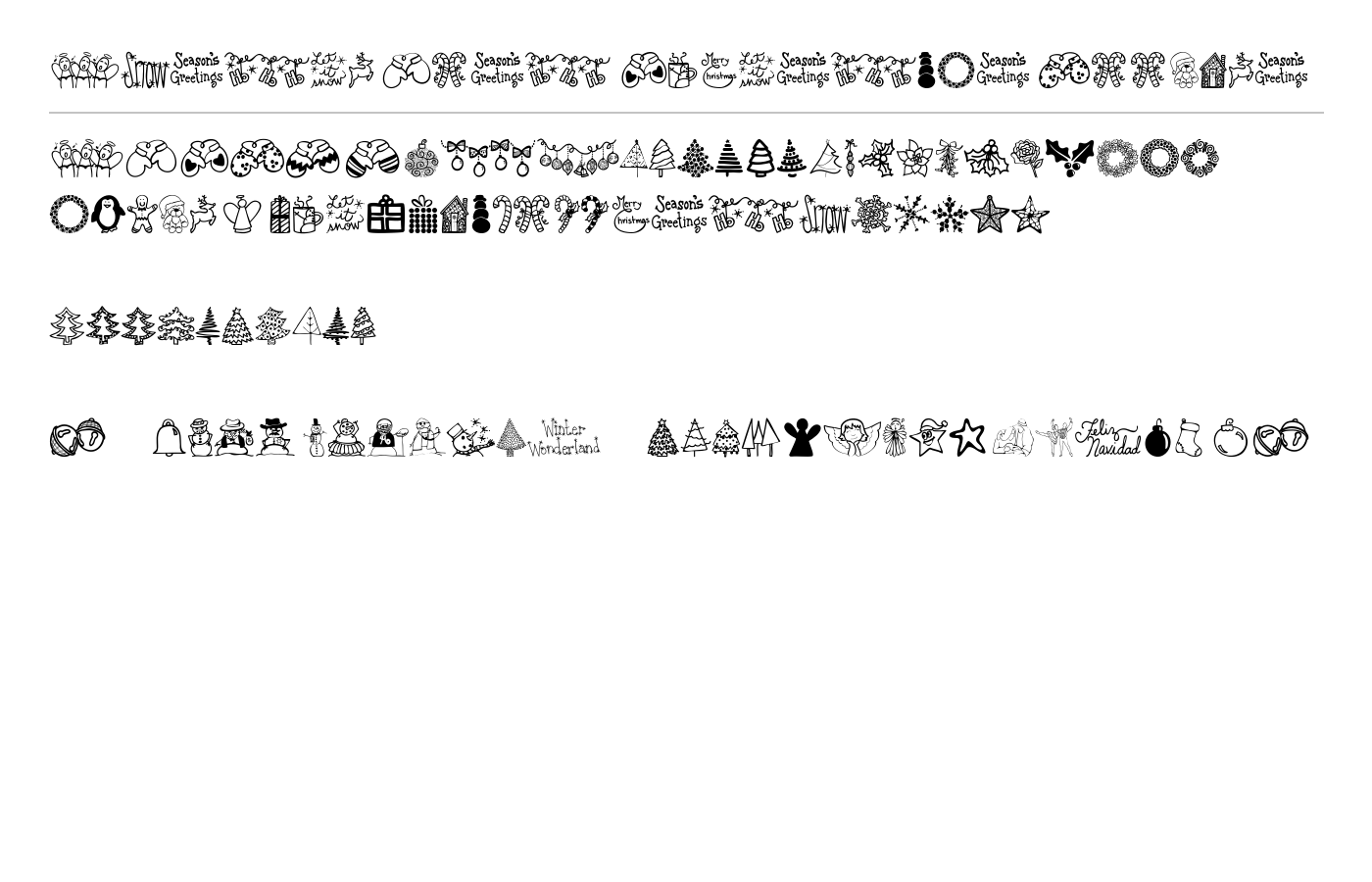
Austie Bost Christmas Doodles Font is a playful, handwritten-style dingbat font filled with charming holiday-themed illustrations and festive icons. Its light, whimsical strokes and cute decorative details make it perfect for adding a joyful, handcrafted touch to seasonal cards, party invites, and holiday craft projects. This font works best for creative designs that aim to evoke warmth and holiday cheer with a fun and casual feel.
Austie Bost Christmas Doodles Font
About Austie Bost Christmas Doodles Font
| Font family | Austie Bost Christmas Doodles Font |
| Designer | Austin Owens |